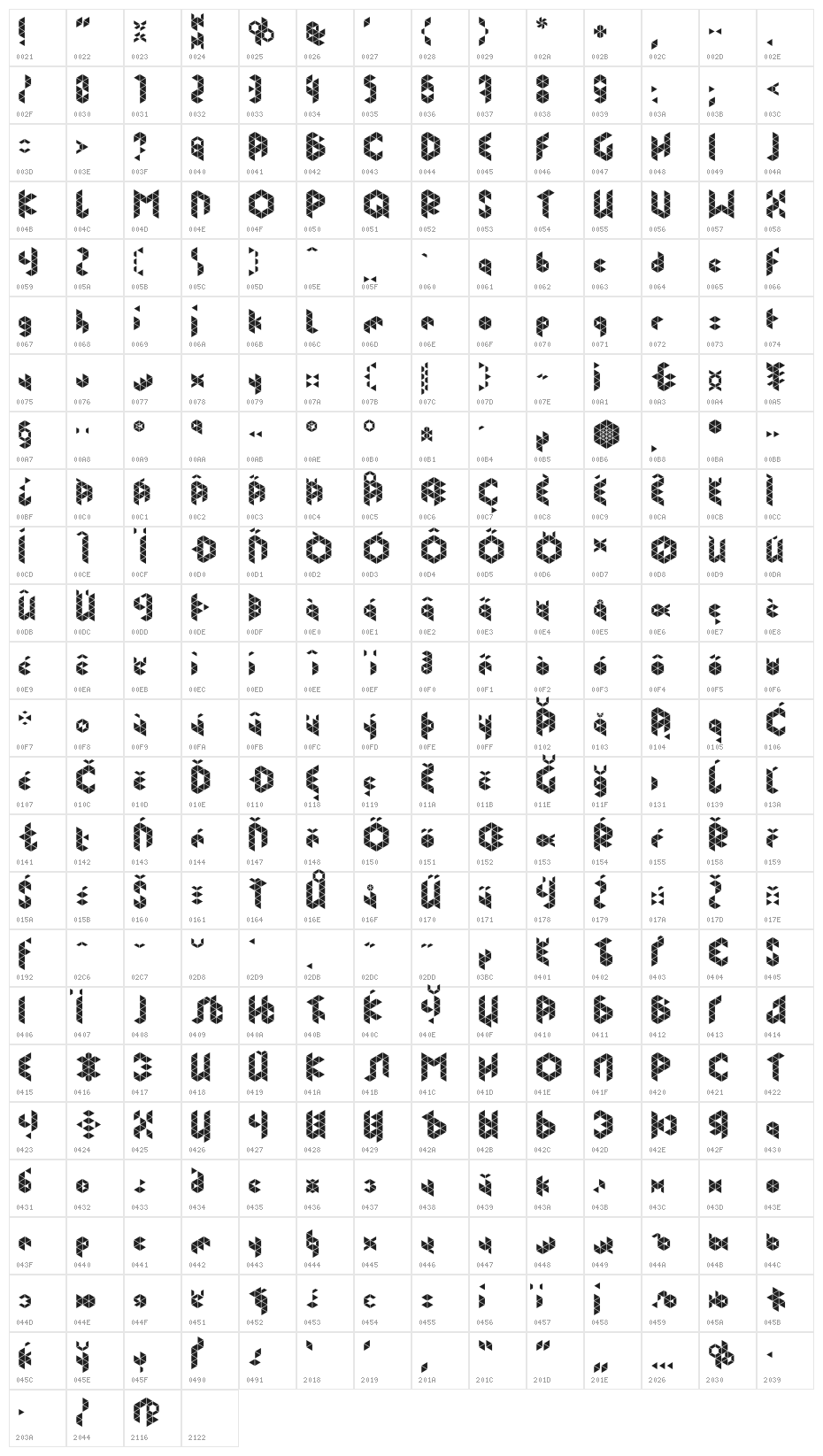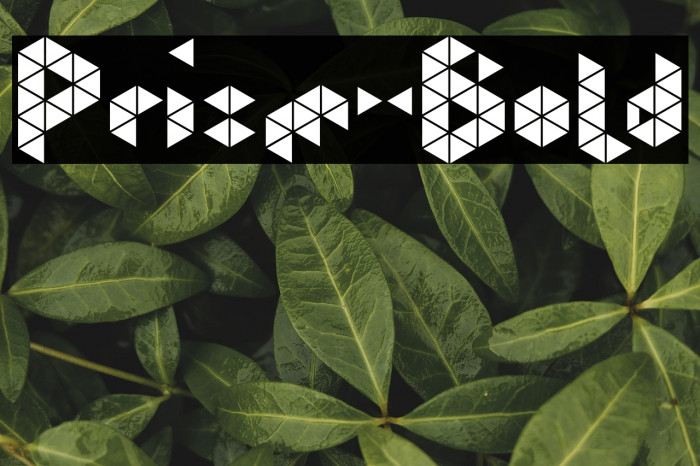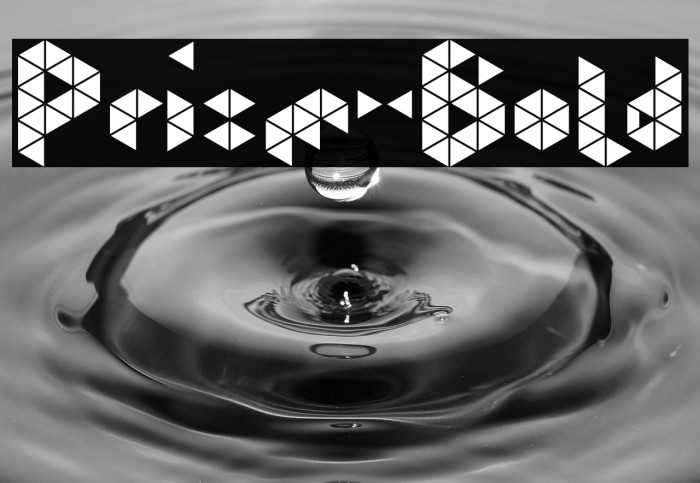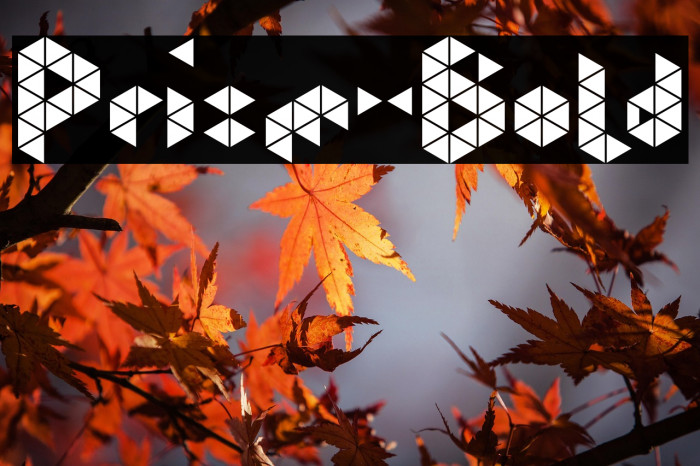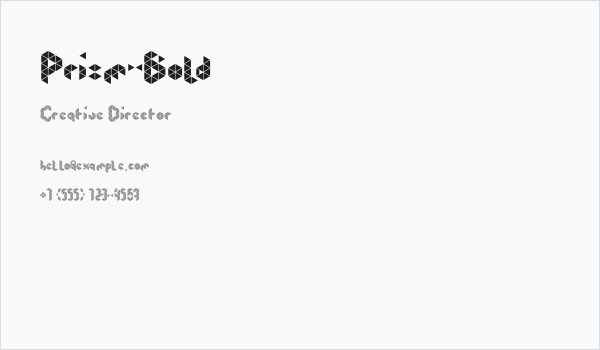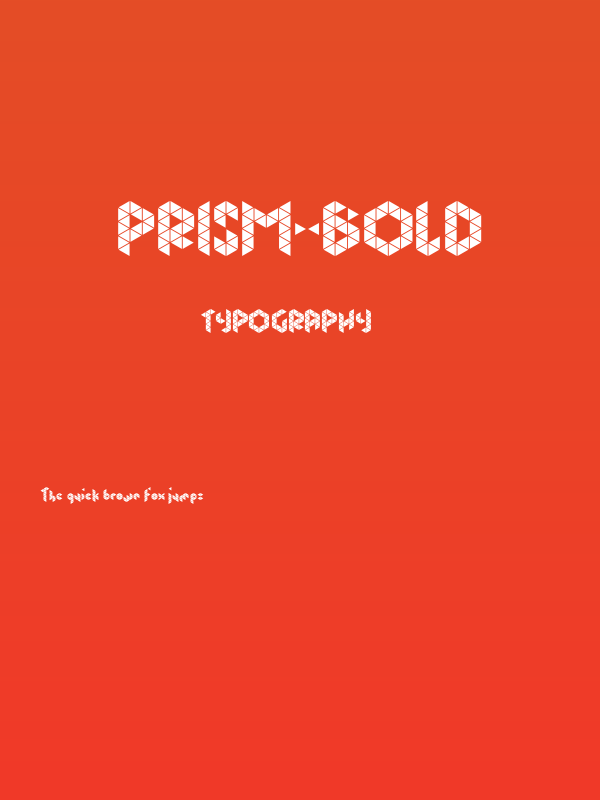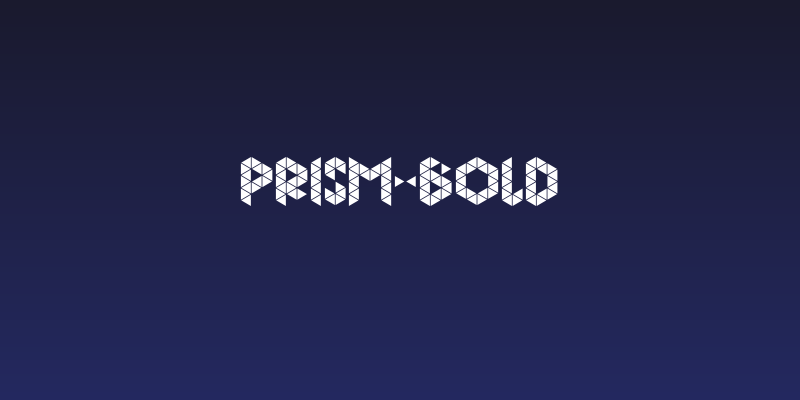
Prism-Bold Font
Prism-Bold Description
This font features a geometric, triangular design that creates a bold and striking appearance. Each character is constructed from a series of interconnected triangles, giving it a unique, faceted look reminiscent of a prism. The angular shapes and sharp edges contribute to a modern and futuristic aesthetic, making it stand out in any design. The uppercase and lowercase letters maintain a consistent style, while the numbers and special characters are equally distinctive, ensuring a cohesive look across all text. The font's boldness and intricate design make it ideal for eye-catching headlines and creative projects.
| Proposed Projects | Ideal for futuristic designs, tech branding, posters, and digital art projects. |